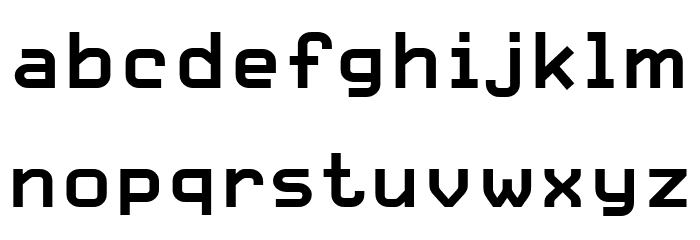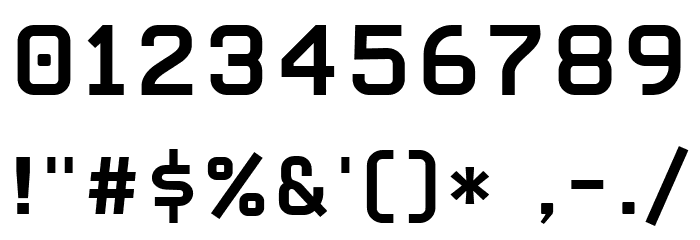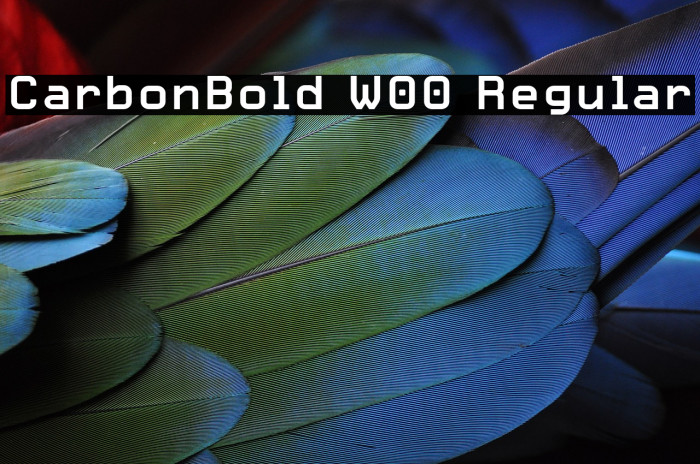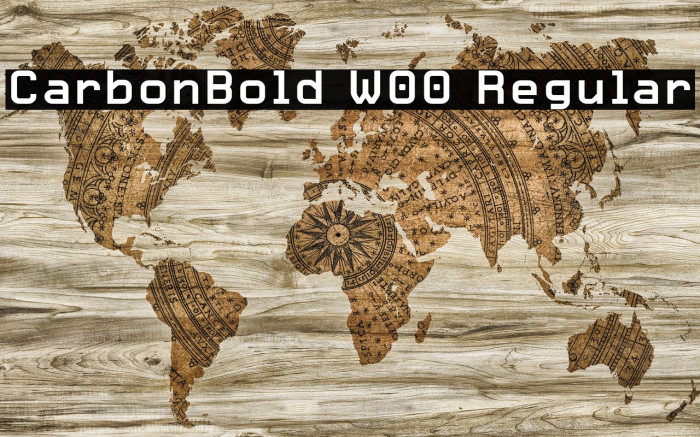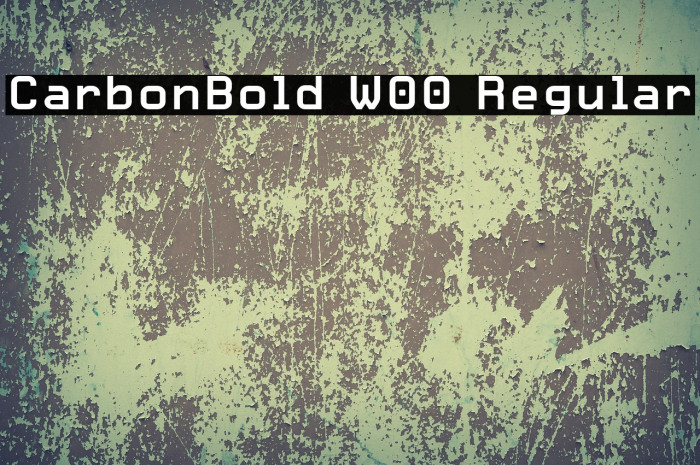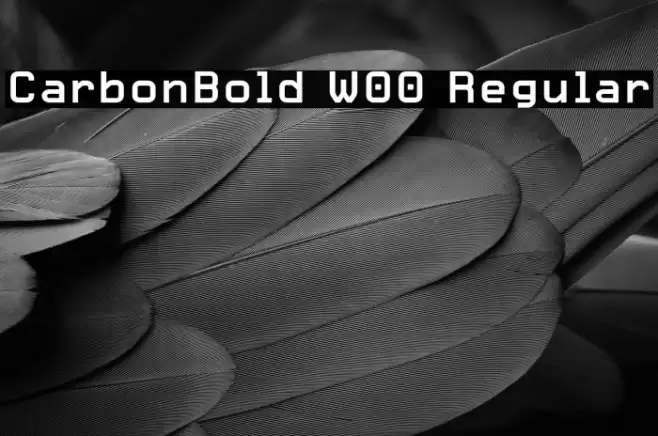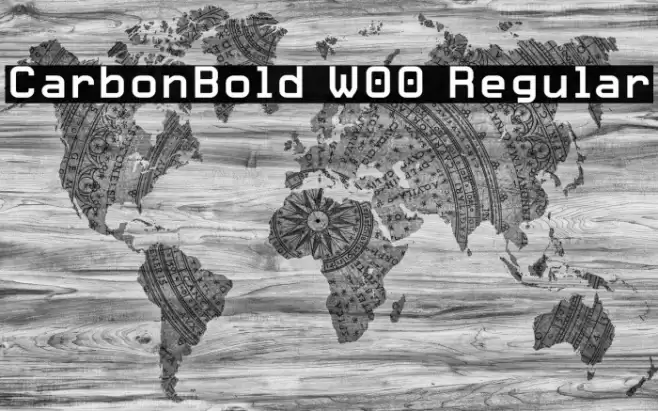
CarbonBold W00 Regular Font
This font features a modern, geometric design with a strong, bold presence. The characters are constructed with clean, straight lines and rounded corners, giving it a contemporary and approachable feel. The uppercase letters are uniform in height, while the lowercase letters maintain a consistent x-height, ensuring readability. The numerals are distinct and easily distinguishable, with a similar geometric style. Special characters are well-integrated, maintaining the overall aesthetic. This font is versatile, suitable for both digital and print media, and can be used to create a strong visual impact.
A modern, geometric font with bold, clean lines and rounded corners.
- Font: CarbonBold W00 Regular
- Proposed Projects: Ideal for branding, headlines, posters, and digital interfaces.
- Category: Sans-Serif
- Use Case: Headlines, Logos, Digital interfaces